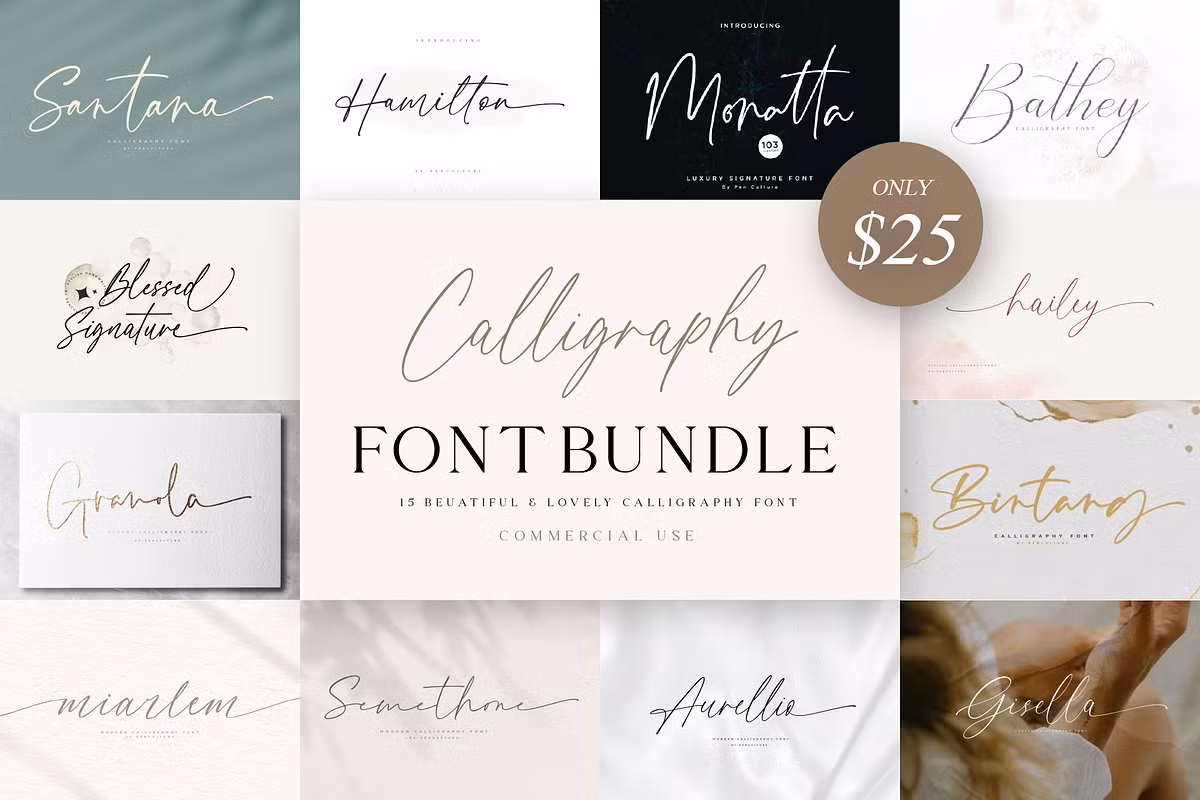
Calligraphy Font Bundle Free Download is a stunning collection of elegant, hand-crafted script fonts designed to bring sophistication and grace to your creative projects. This bundle is perfect for wedding invitations, branding, greeting cards, social media posts, and luxury packaging. With a wide variety of styles—from romantic swashes to refined modern calligraphy—you’ll have the perfect font for every elegant occasion.
Each typeface in the bundle is thoughtfully designed with flowing strokes, stylish ligatures, and smooth curves that add a personal, artistic touch to your work. Whether you're designing for a client or crafting something special for yourself, this bundle is a versatile and valuable addition to your font library.